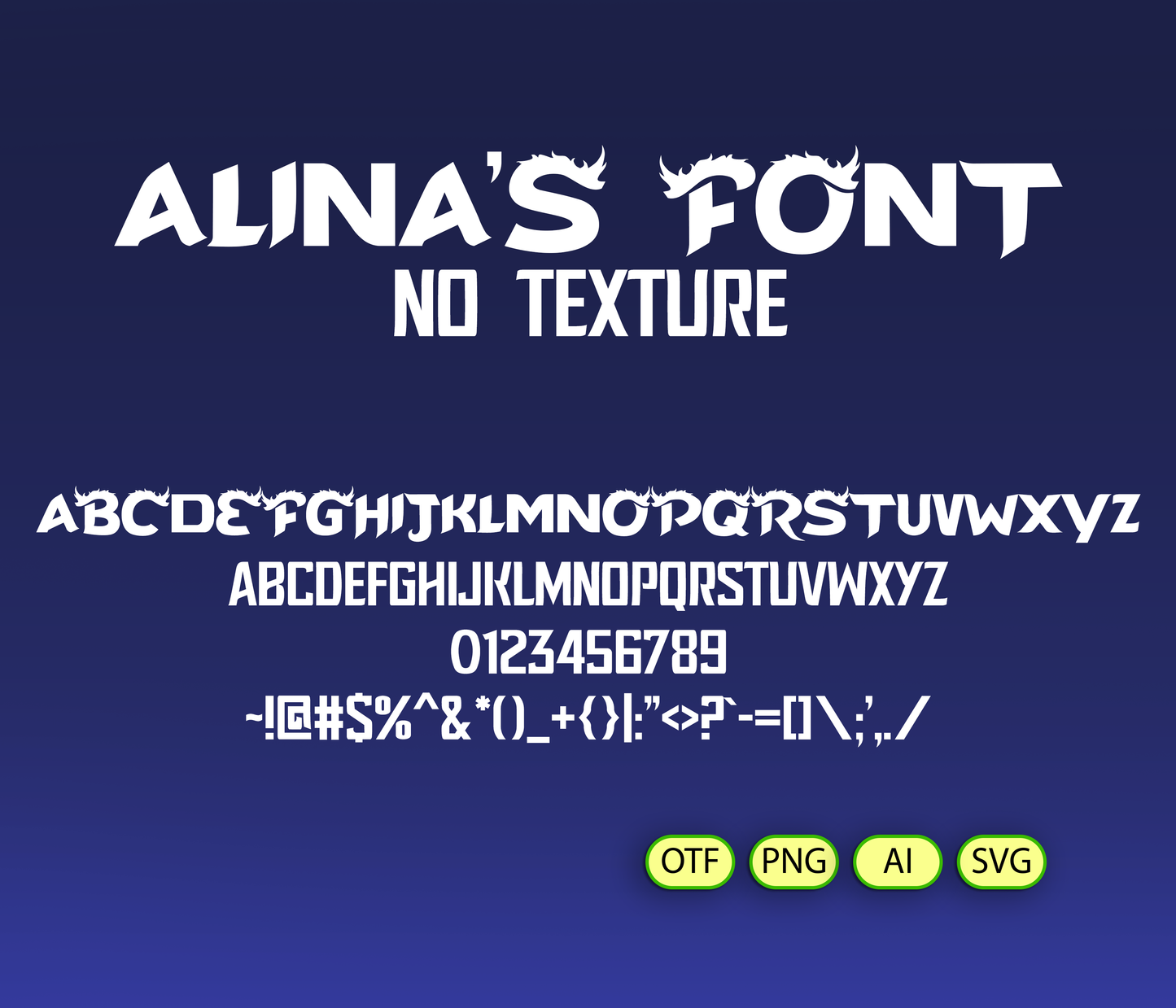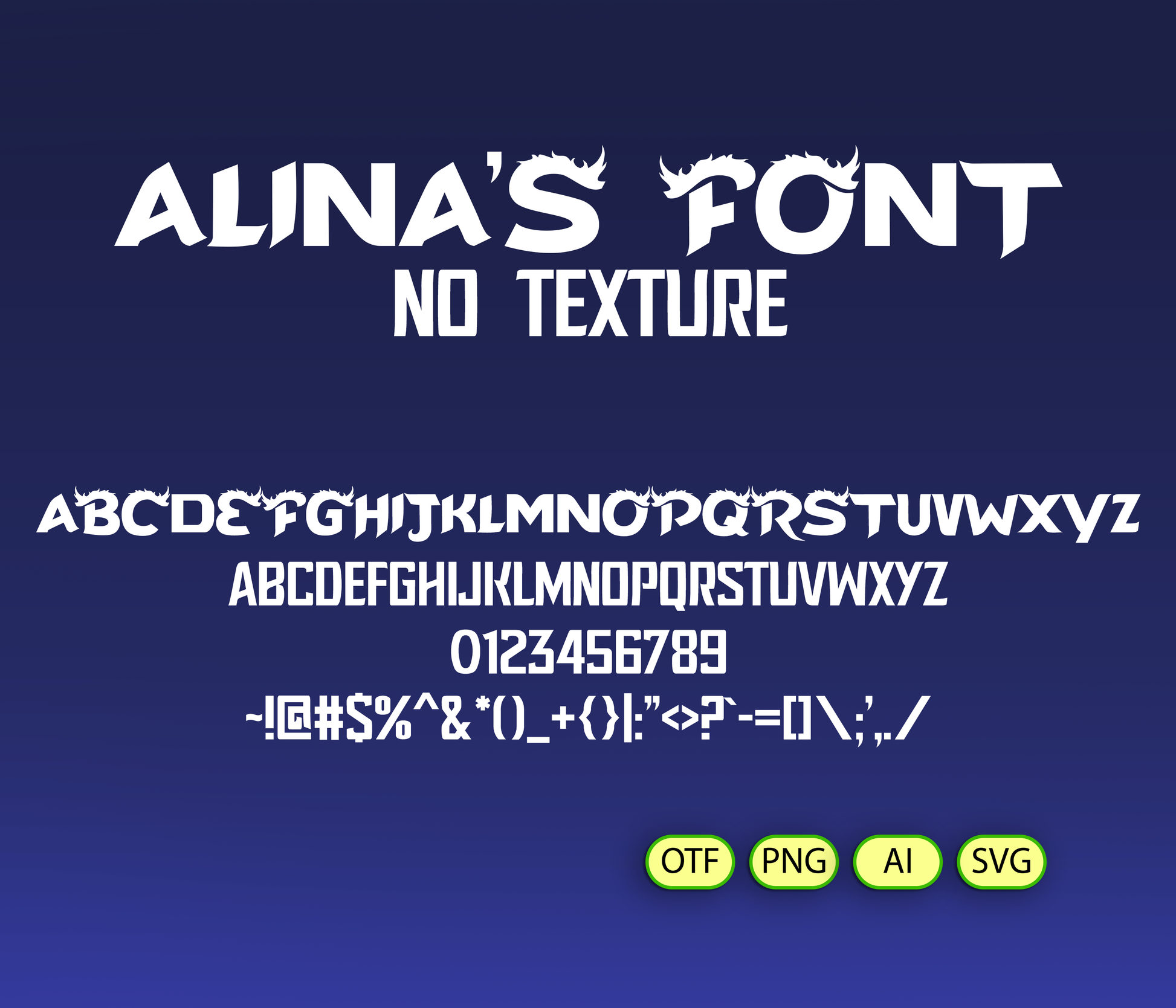
Dragon Warrior Font
Embark on Adventure with the Dragon Warrior Font
Capture the essence of bravery and adventure with our specially designed Dragon Warrior-inspired font. Perfect for fans, event planners, and designers, this font brings the rich cultural tapestry and heroic spirit to your projects. Whether you're creating event invitations, themed merchandise, or digital content, our font ensures your projects shine with the beauty and heroism of this beloved tale.
Our Dragon Warrior-inspired font features elegant, flowing lines and intricate details that reflect the cultural richness and adventurous spirit of the story. Ideal for various applications:
- Event Invitations: Create stunning invites for movie nights, themed parties, or cultural celebrations.
- Merchandise Design: Perfect for t-shirts, posters, and accessories that capture the essence of the Dragon Warrior's journey.
- Digital Media: Enhance websites, blogs, and social media content with captivating headers and graphics.
- Educational Materials: Use in presentations, worksheets, and content focused on Southeast Asian culture, storytelling, or animation.
- Personal Projects: Add a touch of adventure to scrapbooking, DIY crafts, or home decor inspired by the world of the Dragon Warrior.
Our Dragon Warrior font not only pays tribute to the enchanting story but also empowers you to infuse your designs with its spirit of adventure and cultural richness. Whether crafting promotional materials, designing unique merchandise, or adding a touch of magic to personal projects, this font allows you to communicate with the beauty and excitement that define the Dragon Warrior's journey. Ready to embark on a creative journey with this inspiring font? Unlock a world of captivating design now.